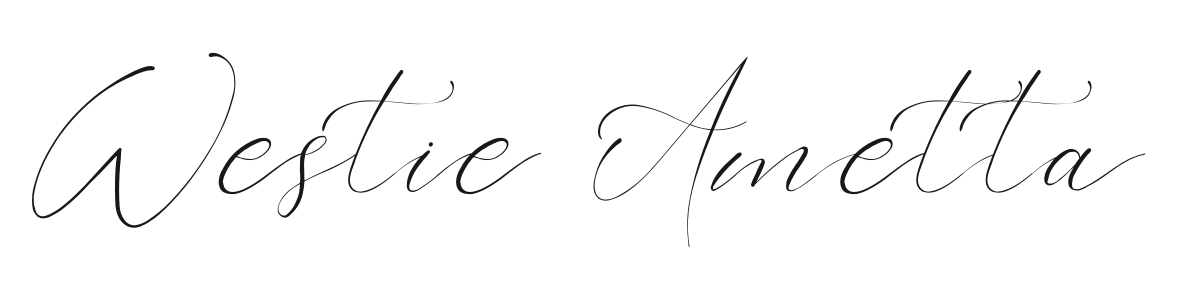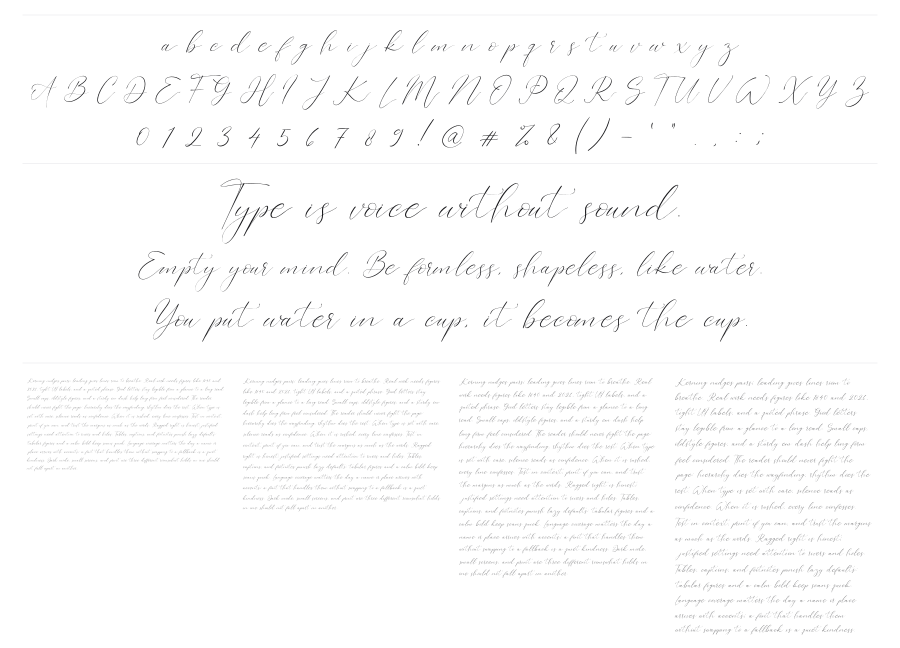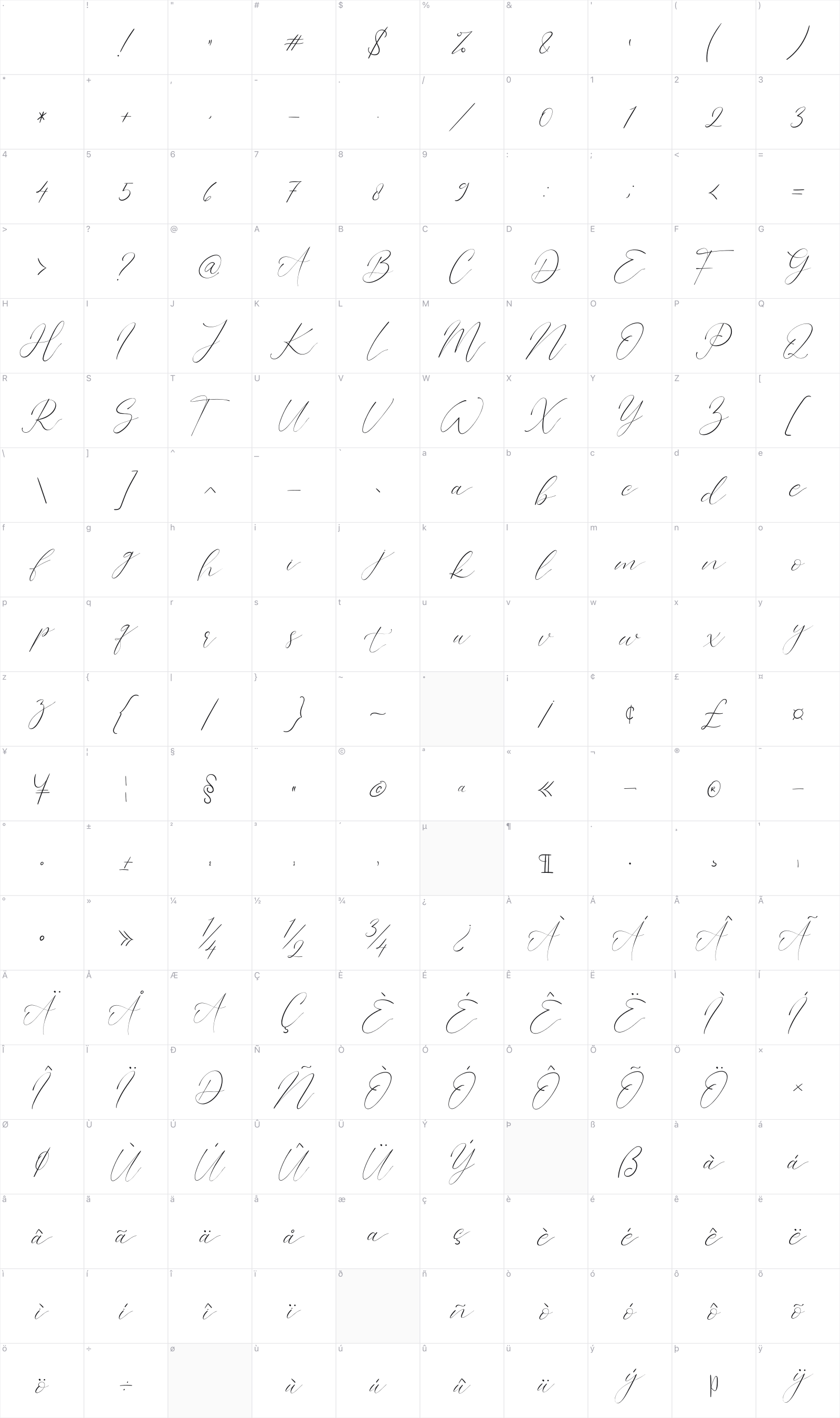
Westie Ametta
Westie Ametta is a delicate formal script rooted in copperplate calligraphy tradition, with gossamer hairline strokes and sweeping, looping swashes. The extreme stroke contrast and airy proportions give it an unmistakably romantic, high-end quality. It thrives on wedding stationery, editorial headers, and luxury branding where lightness and flourish are the point.